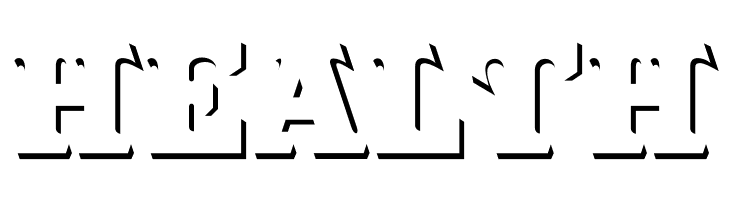
A bold, stencil-style font with geometric cutouts and an industrial feel.
A bold, stencil-style font with a modern and industrial look.
A rugged, hand-drawn font with a metallic, industrial aesthetic.
A bold, geometric font with a futuristic and industrial design.
A bold, industrial stencil font with a geometric, blocky design.